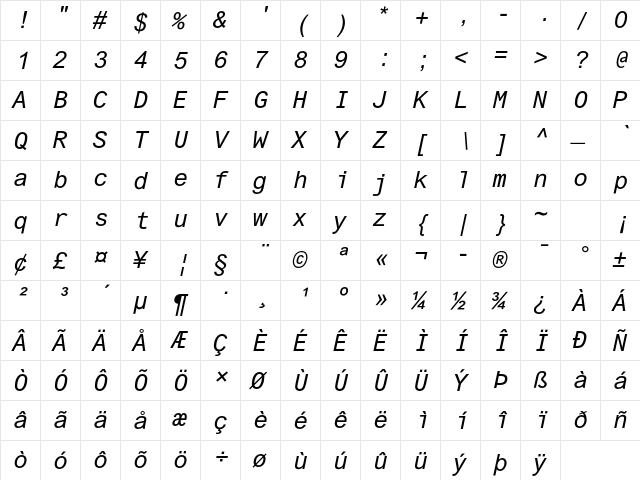
Arial Monospaced MT Std Oblique
Design Context for Arial Monospaced MT Std Typeface
Arial Monospaced MT Std brings the precise, column-aligned rhythm of monospaced typography to designs that value technical clarity and systematic order. Its italic angle brings a sense of urgency and motion to the letterforms.
Pro Tip: Use Arial Monospaced MT Std with slightly increased line-height for extended reading — fixed-width spacing can feel dense in longer passages without extra breathing room.